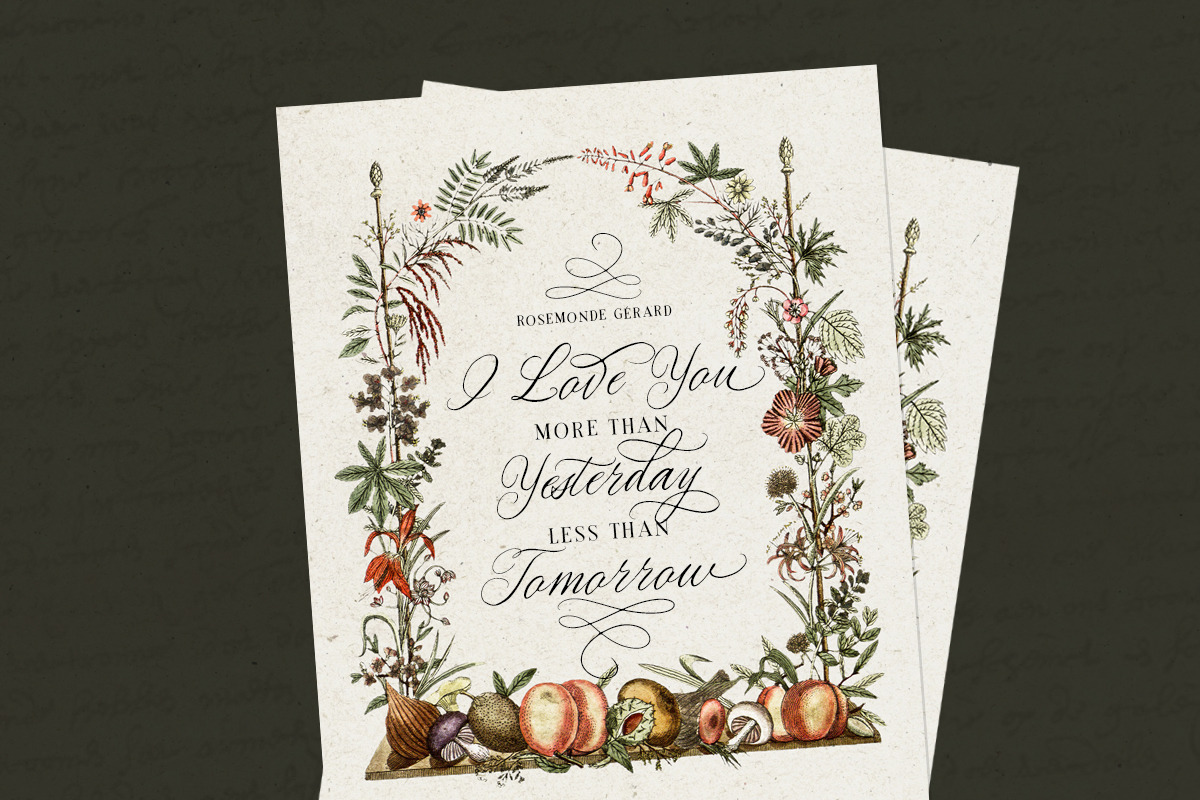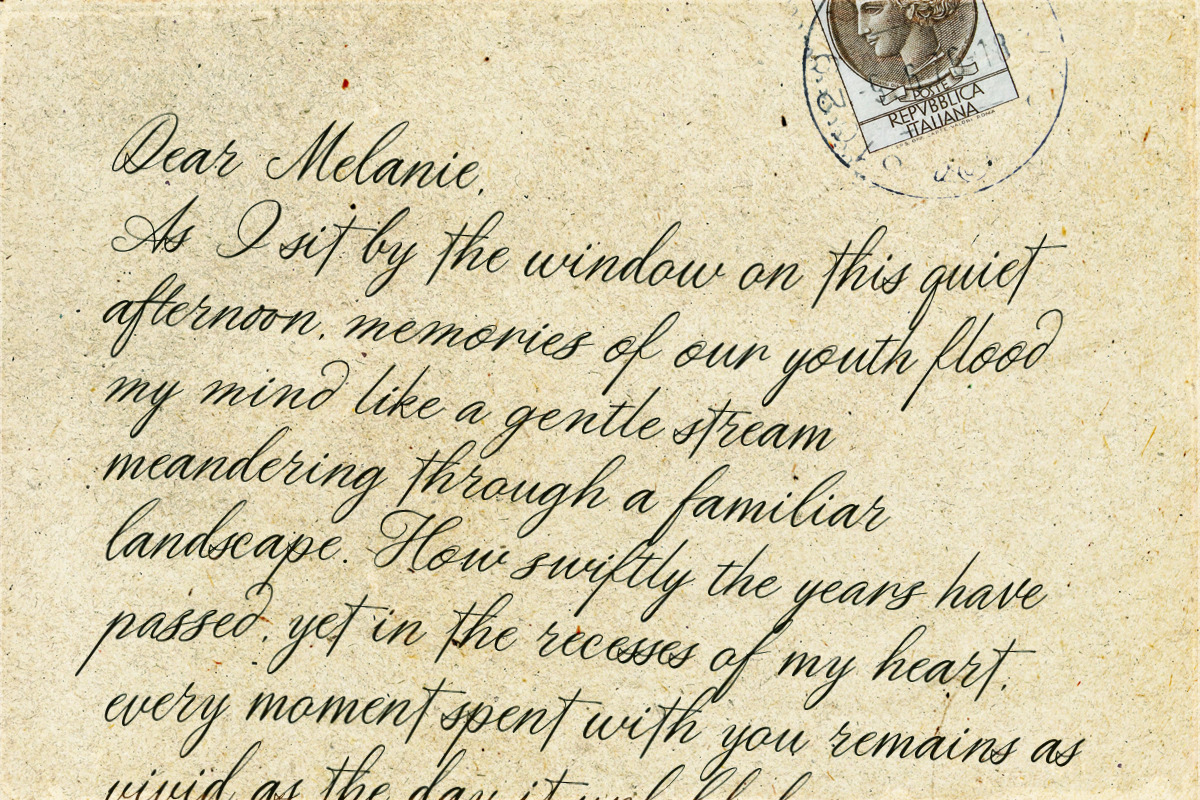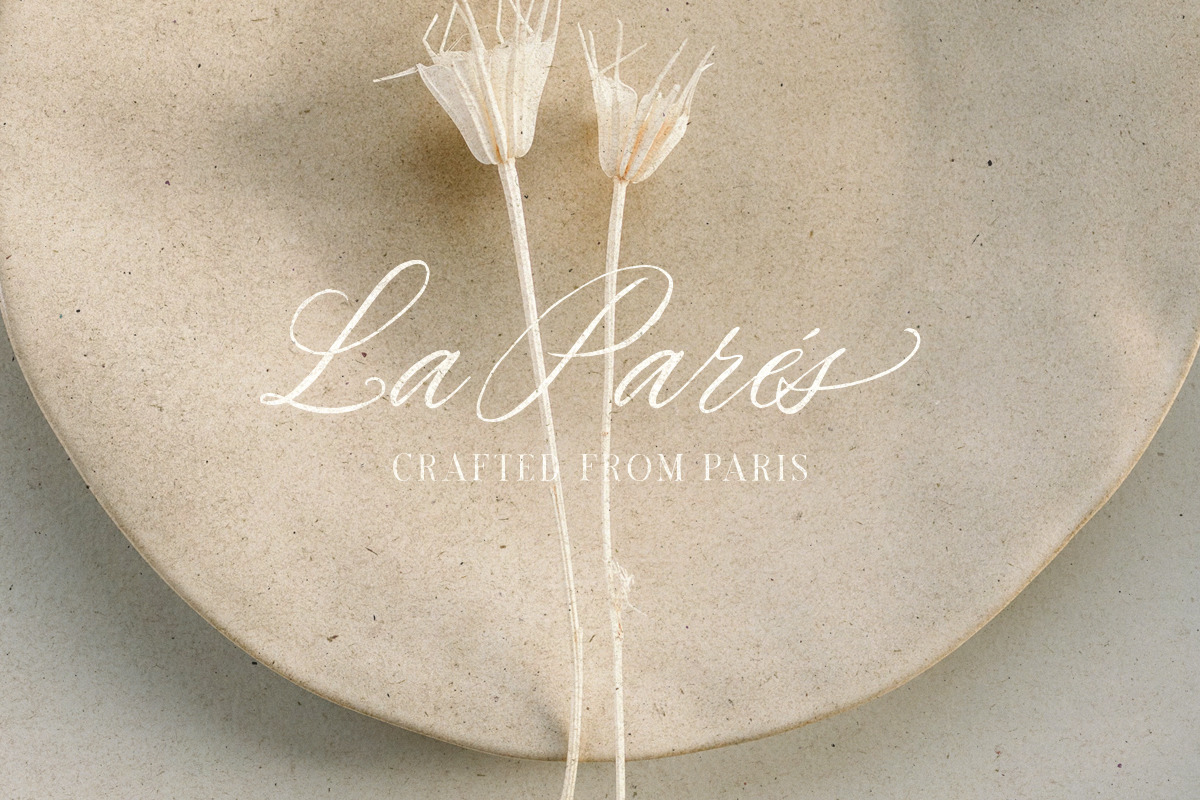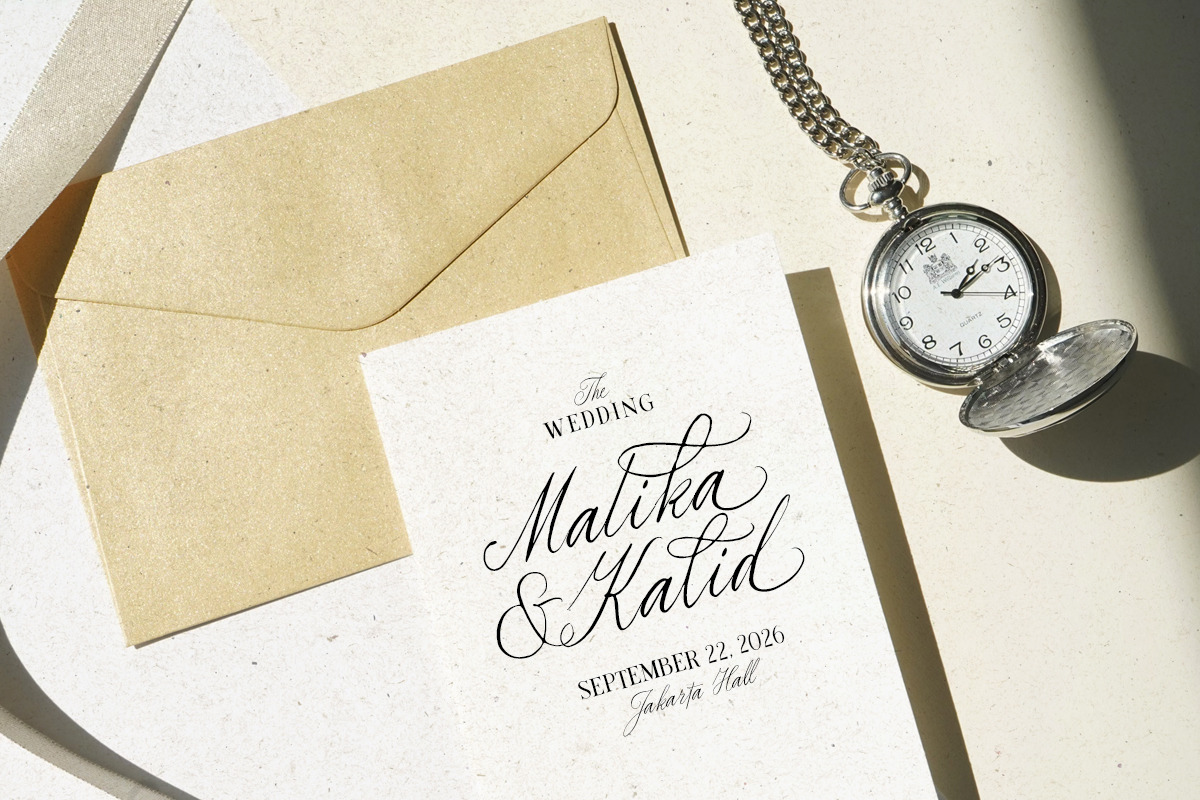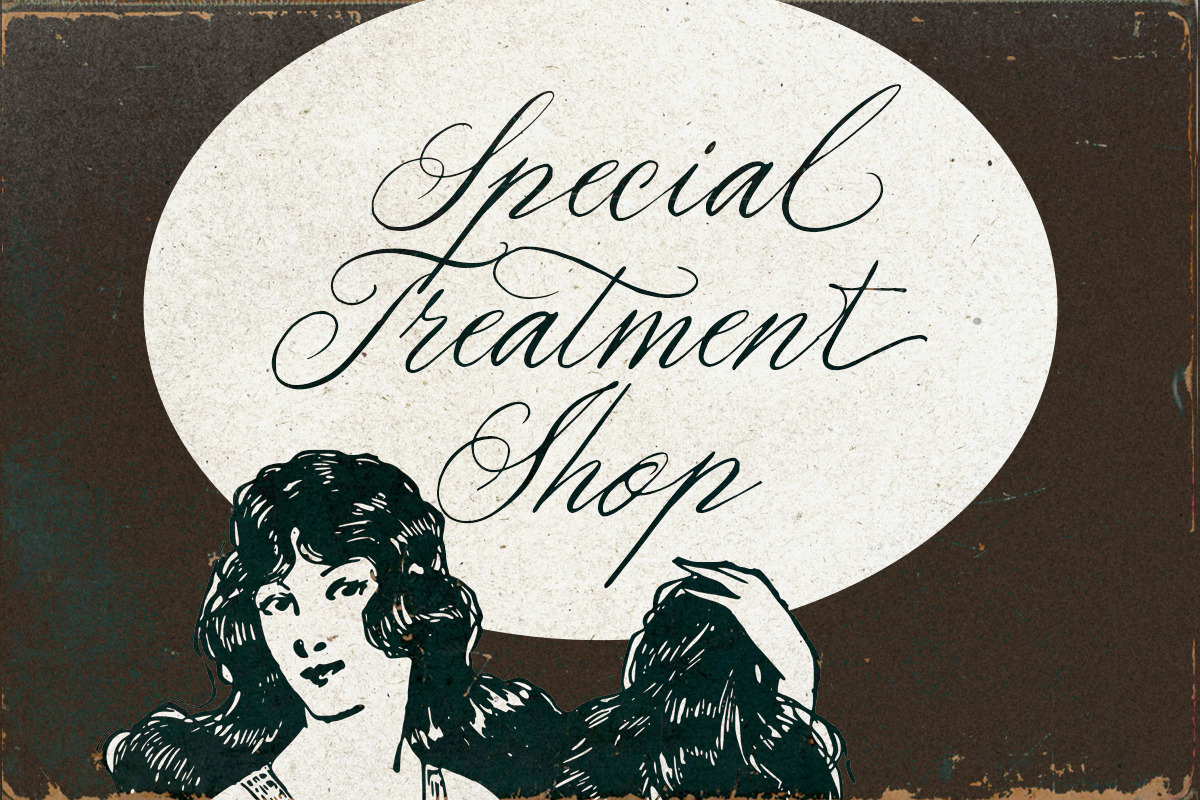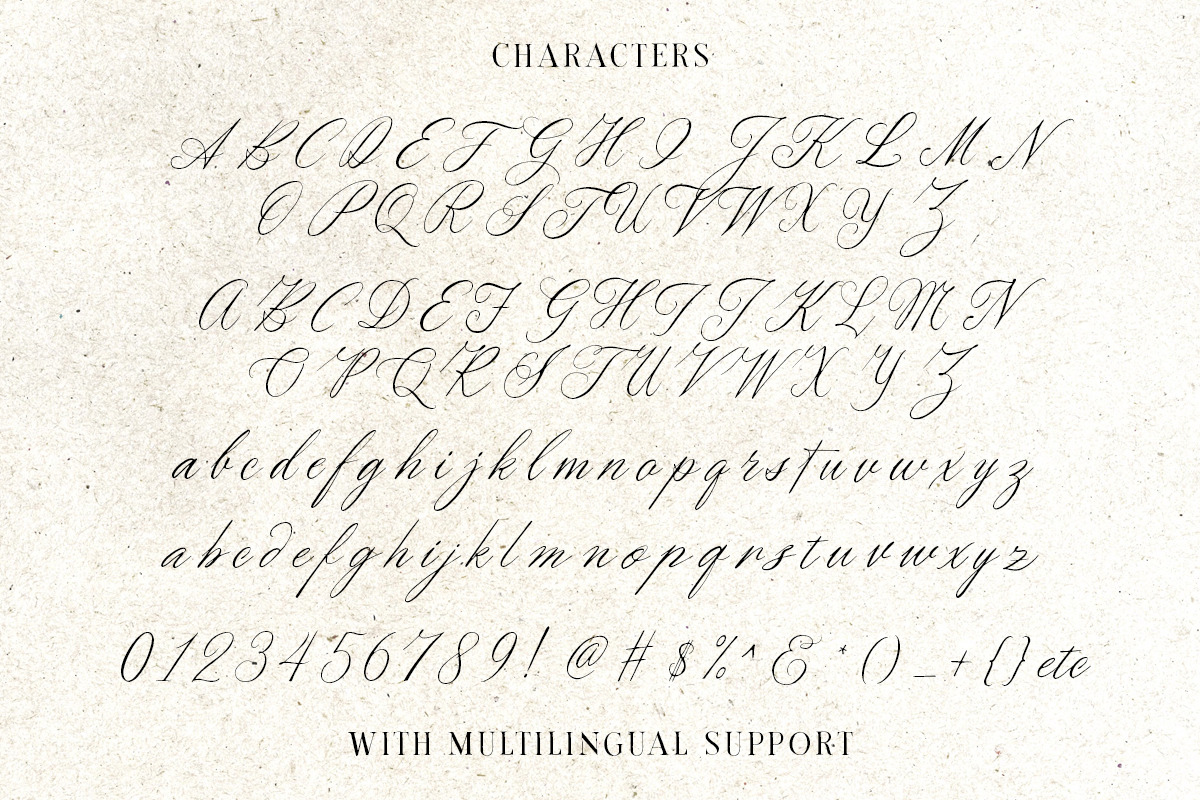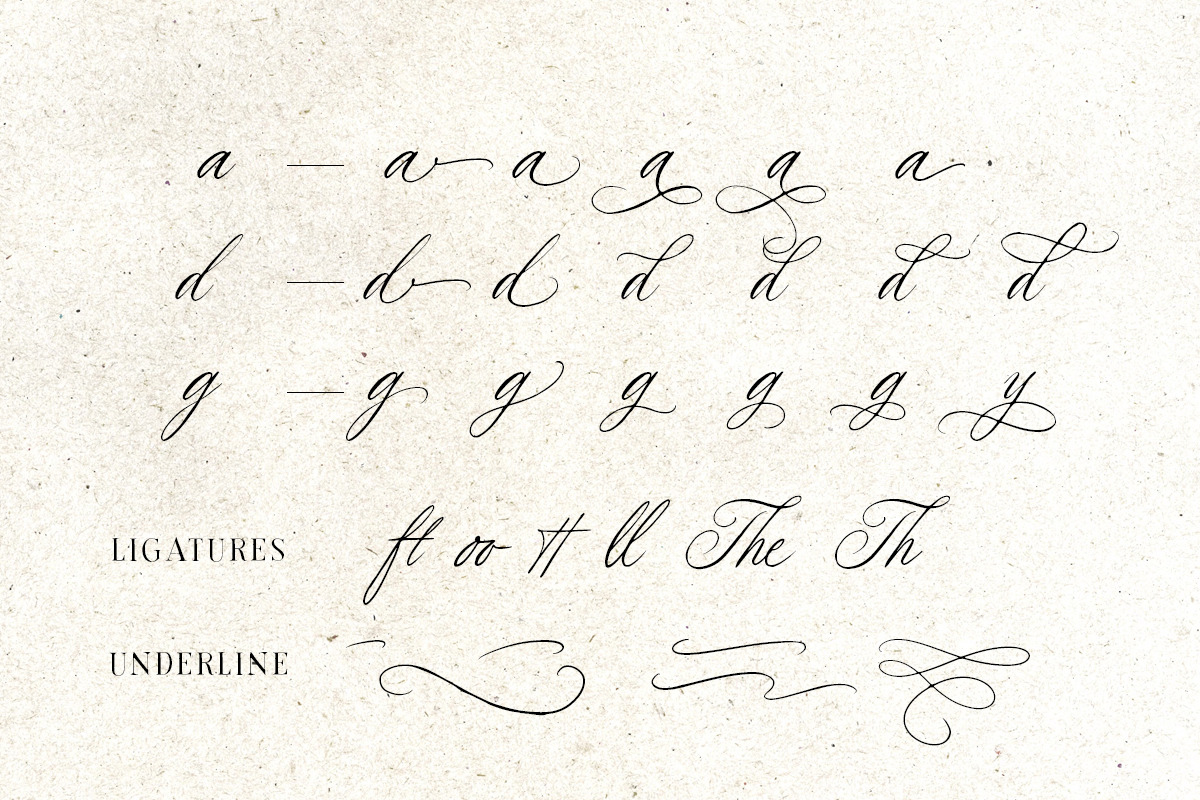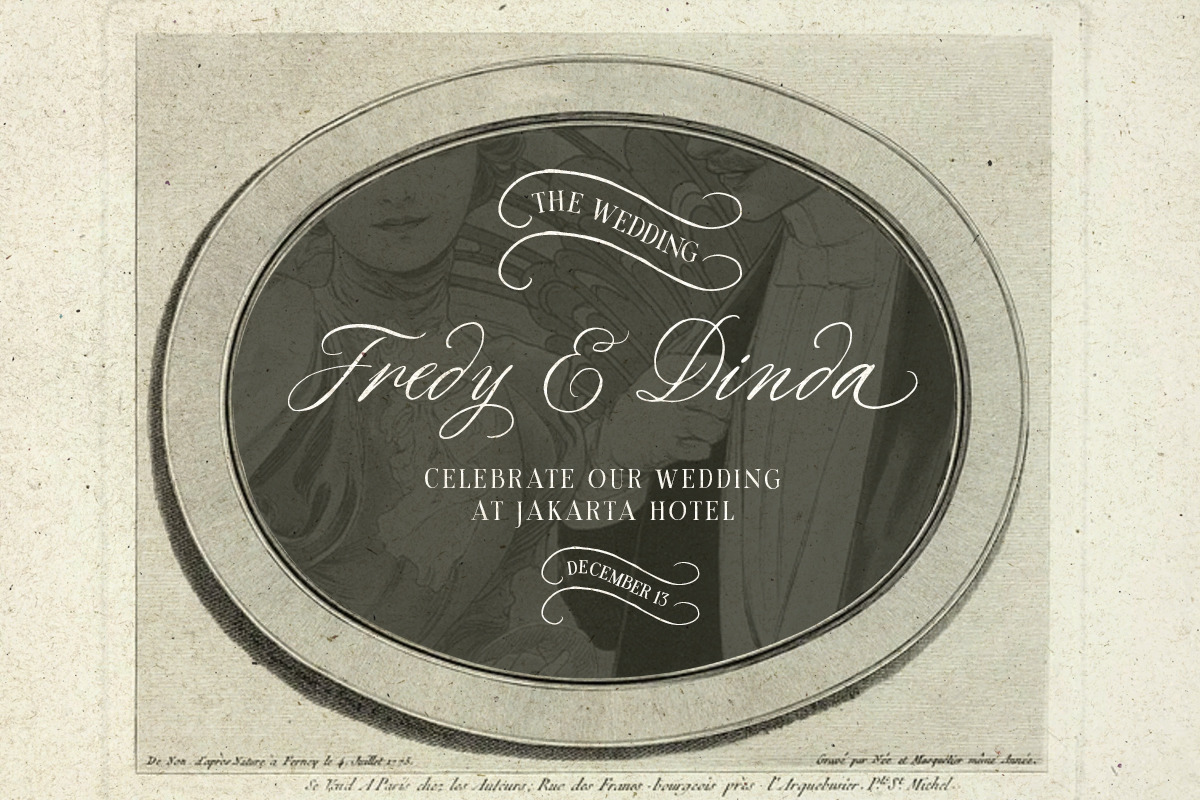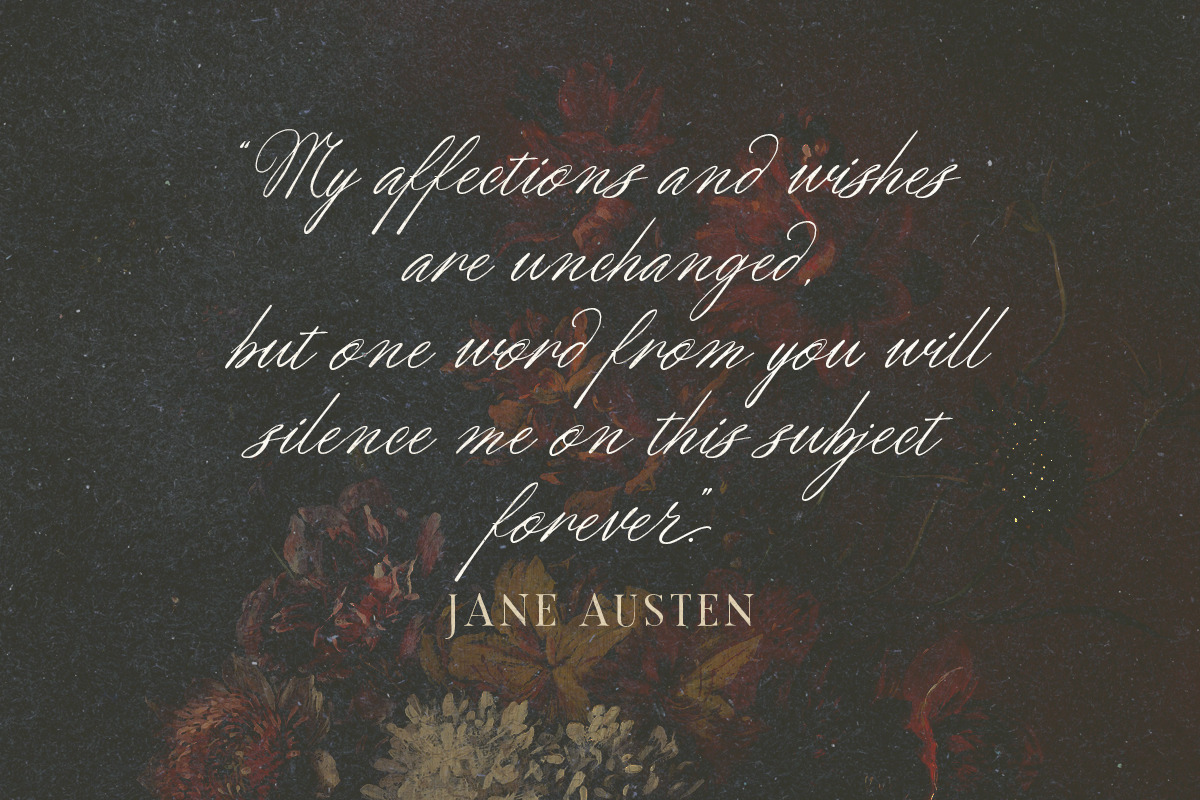
Golden Rouge Vintage Script
Introducing Golden Rouge – a typeface inspired by vintage script style. With a range of stylistic alternates, ligatures, and swashes, this font offers versatility for creating lettering with a natural, handcrafted feel.